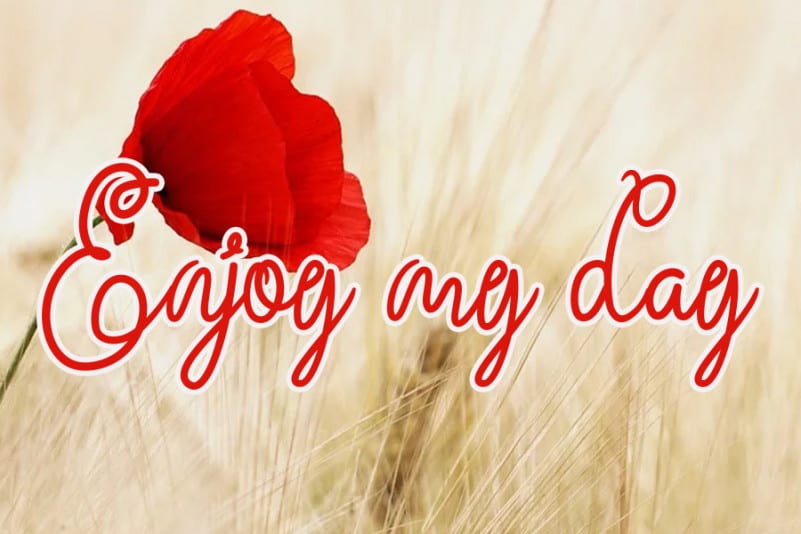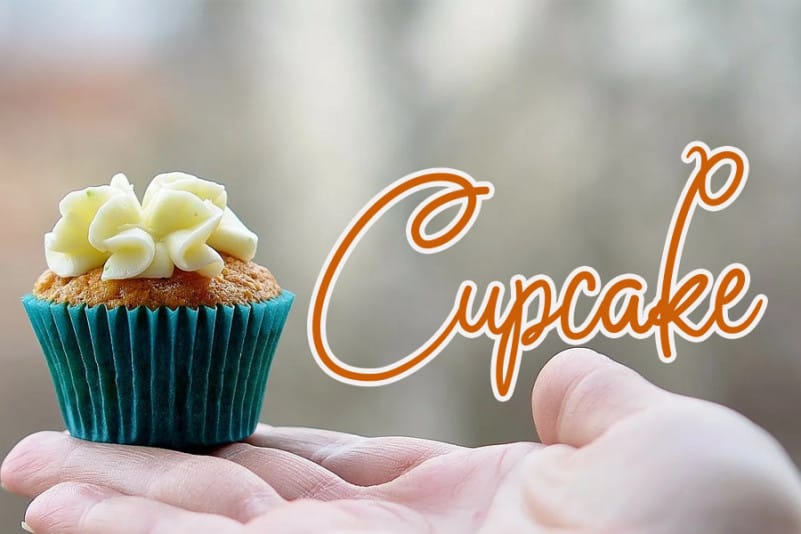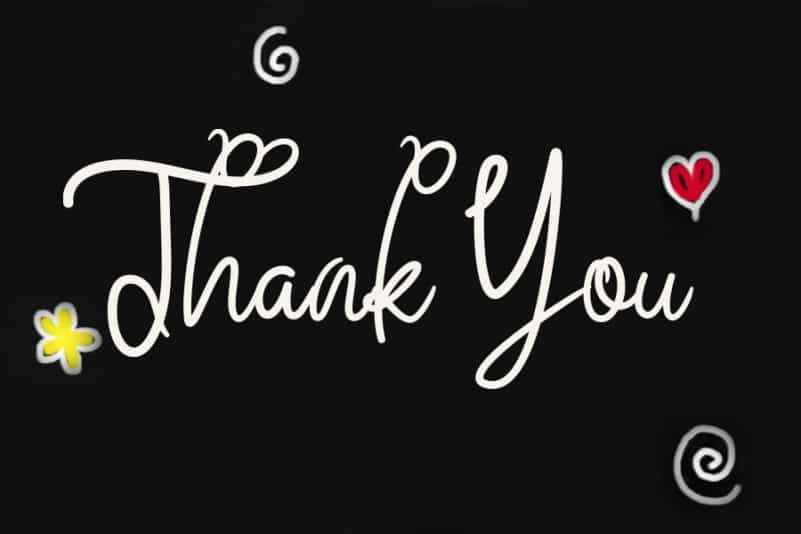
Butter Valentine Handwritten Font
Butter Valentine Handwritten Font feels equally romantic and whimsical. It looks lovely on wedding invitations, thank you cards, quotes, greeting cards, logos, business cards and every other design which needs a customized touch.
Butter Valentine Handwritten Font is a very talented product for you to use,
Latest letters that can be used for various products, invitations, wall hangings, weddings, and more.